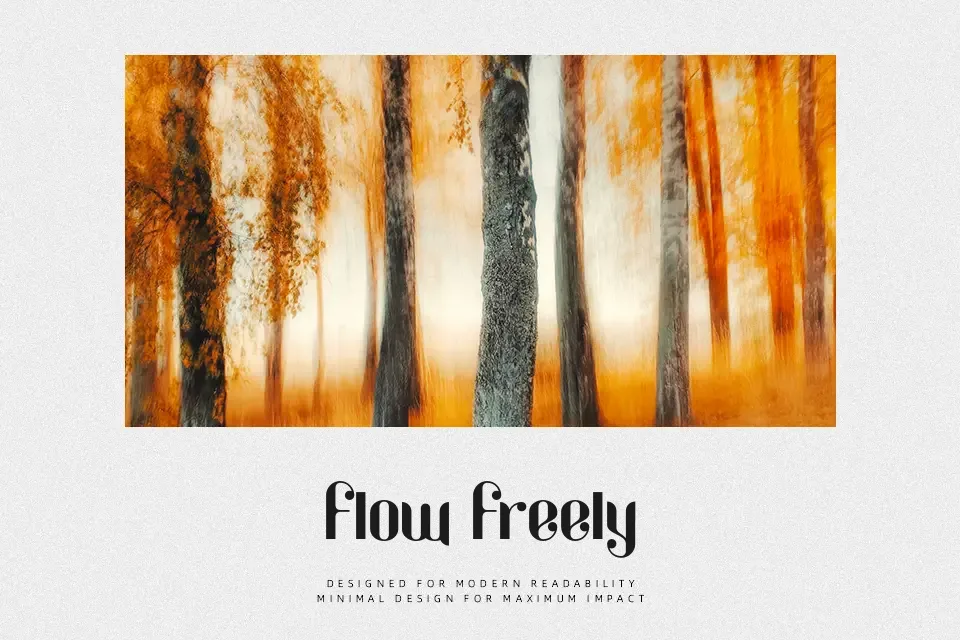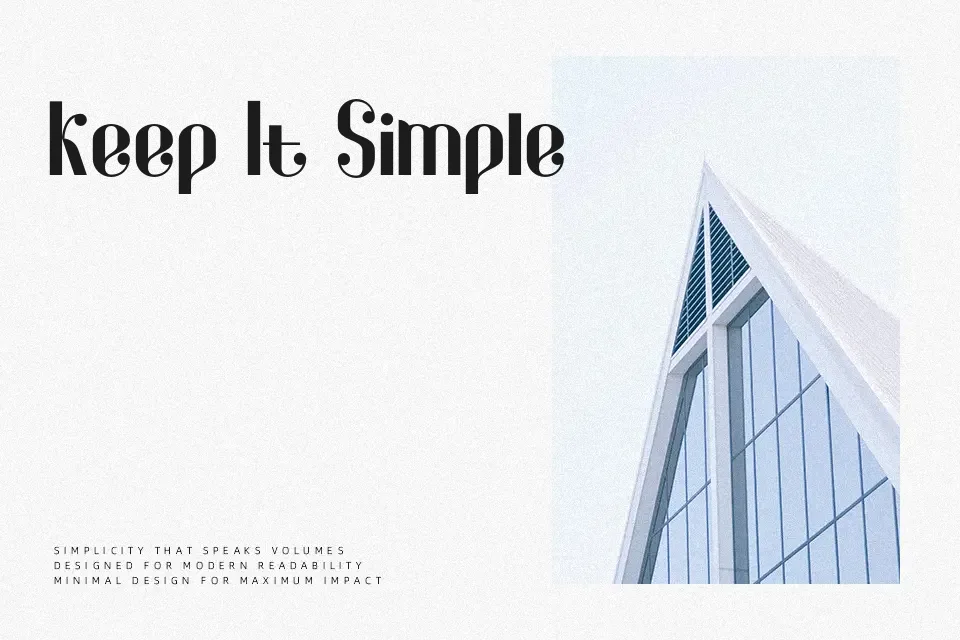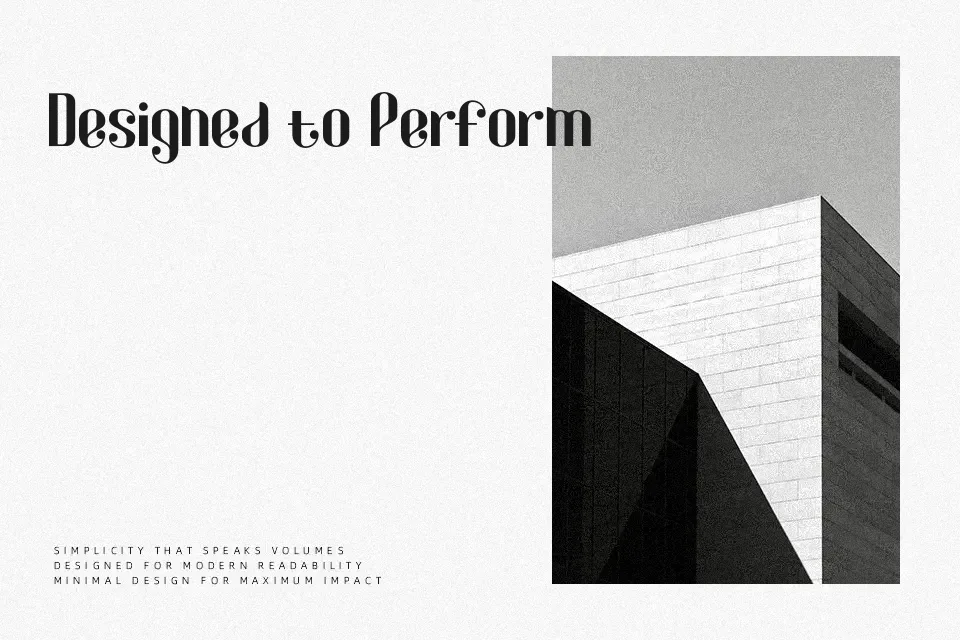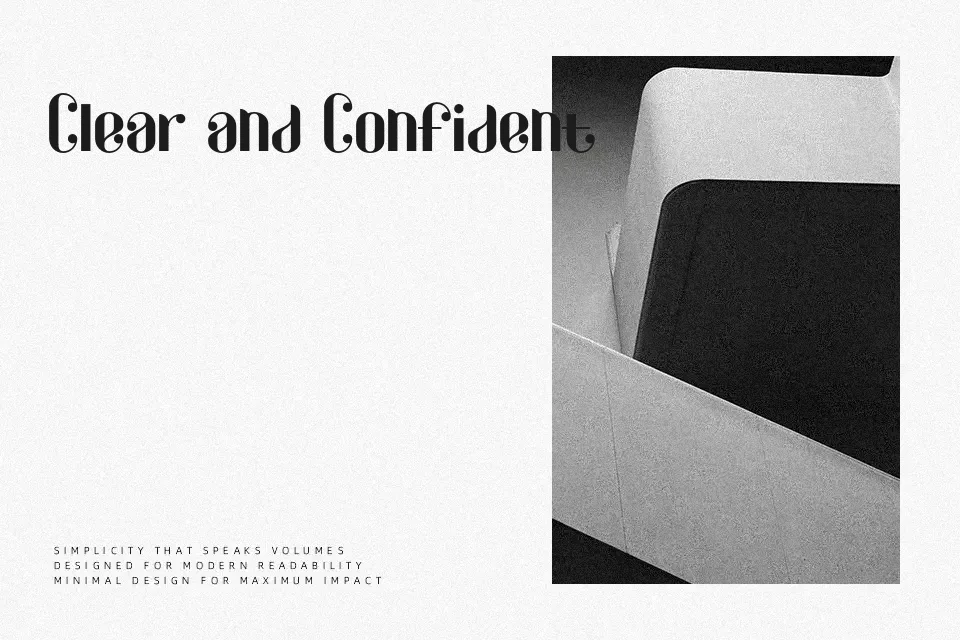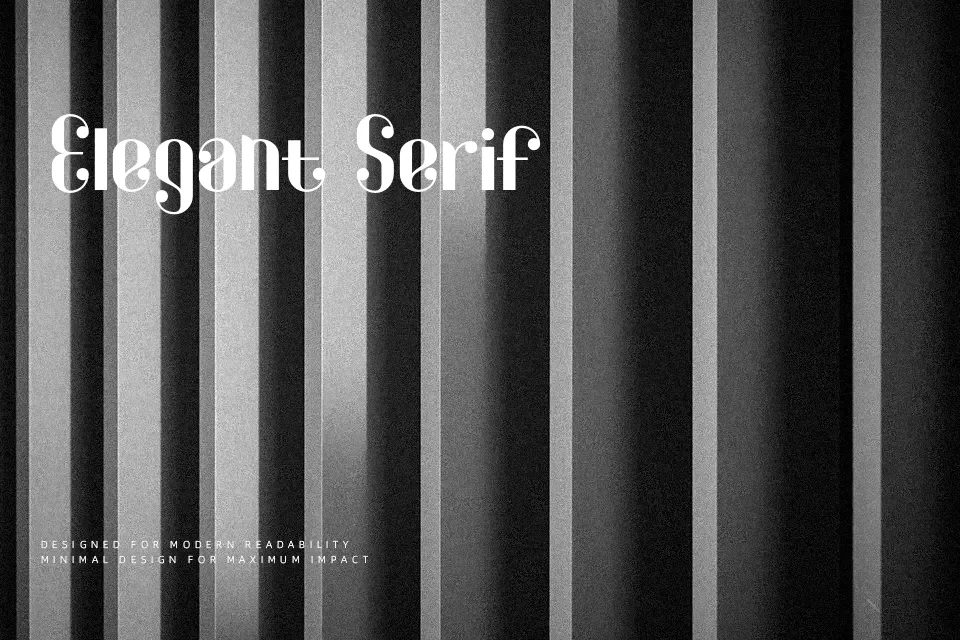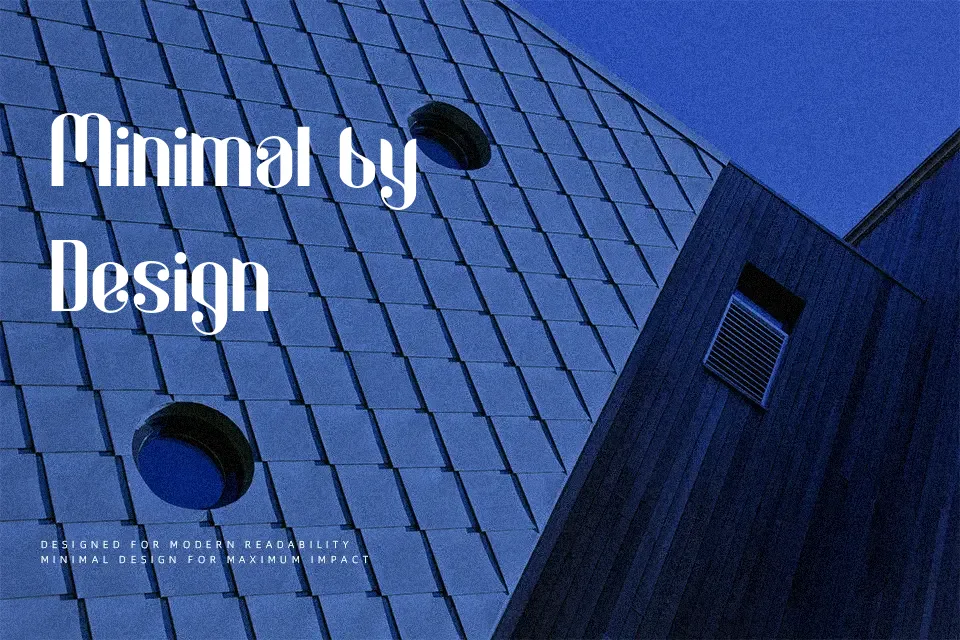
Qartiant Font
Qartiant Font introduces a unique hybrid structure, combining a clean sans-serif base with distinct ball terminals. The strokes maintain a mostly uniform weight, while the rounded decorative ends add an unexpected retro elegance to the letterforms. Its balanced proportions and moderately tight spacing help preserve clarity, making the design visually striking in medium and large applications. A vintage product label or cosmetic branding mockup benefits greatly from these expressive, bold details. However, the distinct terminals and dense visual rhythm reduce continuous reading comfort, making it less effective for dense editorial layouts. The typeface performs best when displayed at larger scales, offering a stylish balance between modern structure and vintage ornamentation.
vintage product packaging, coffee shop logos, poster headlines, cosmetic branding
long paragraph text, dense editorial layouts, spreadsheet data, small interface labels
Perfect for branding, logo, and packaging, with a elegant and decorative style.